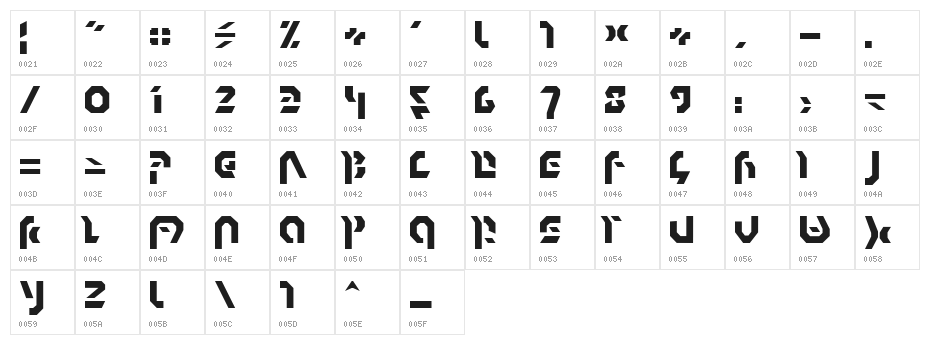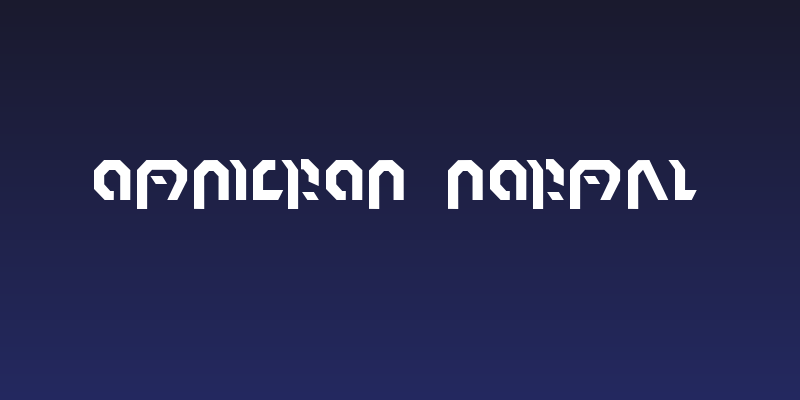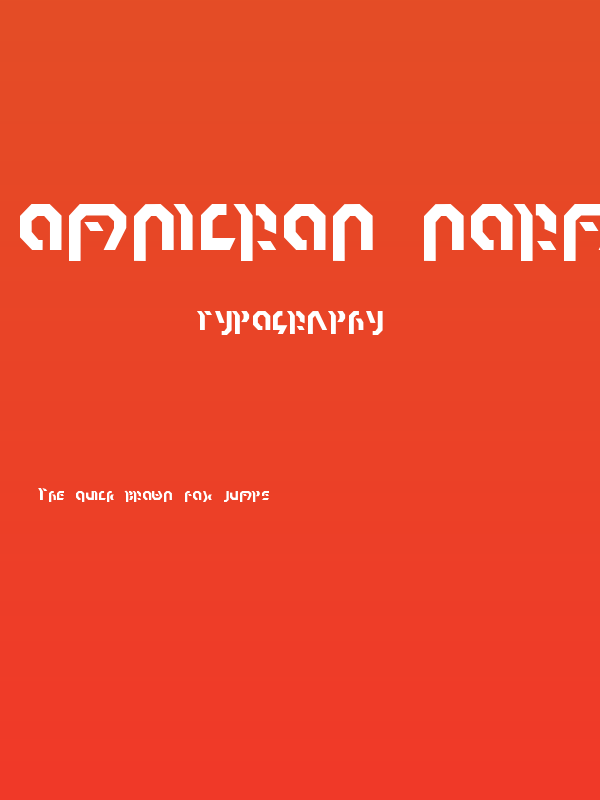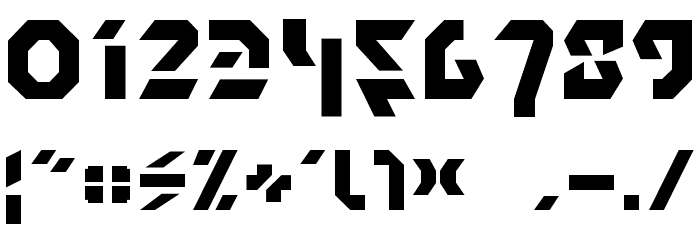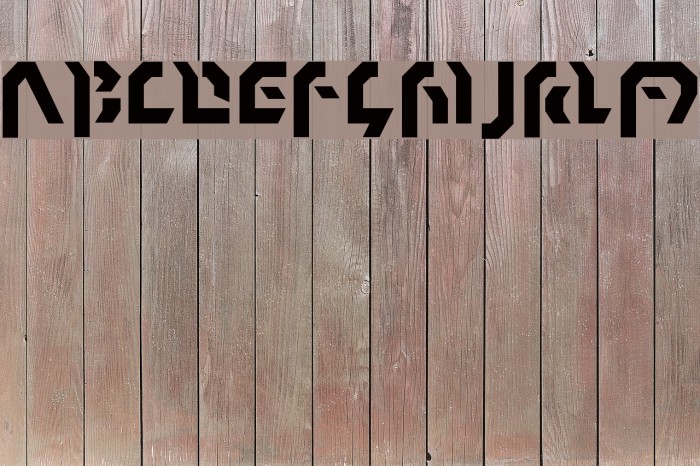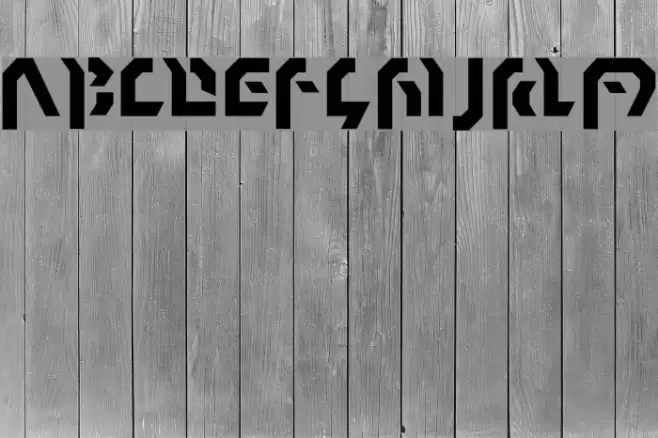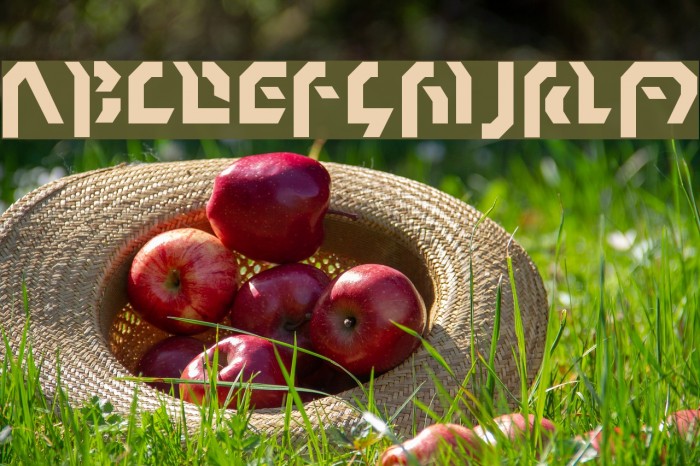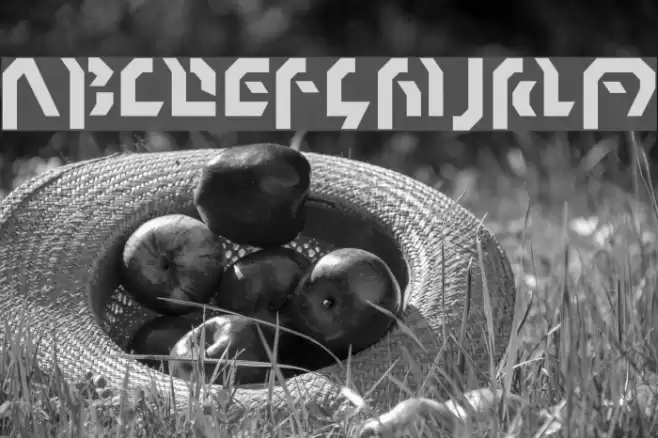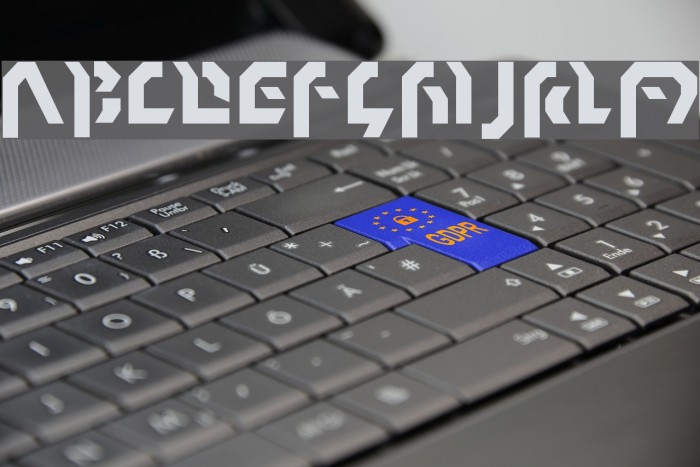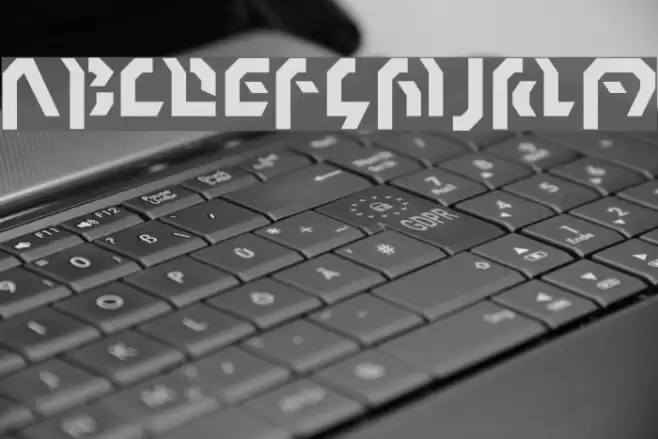
Omnicron Normal Font
| Рекомендуемые проекты | Ideal for sci-fi themed projects, technology branding, video game titles, and modern poster designs. |